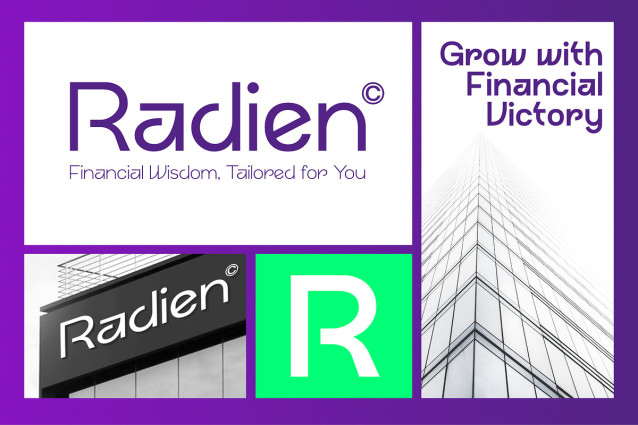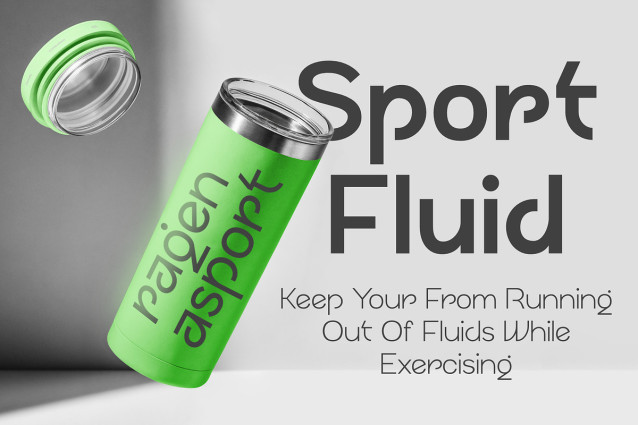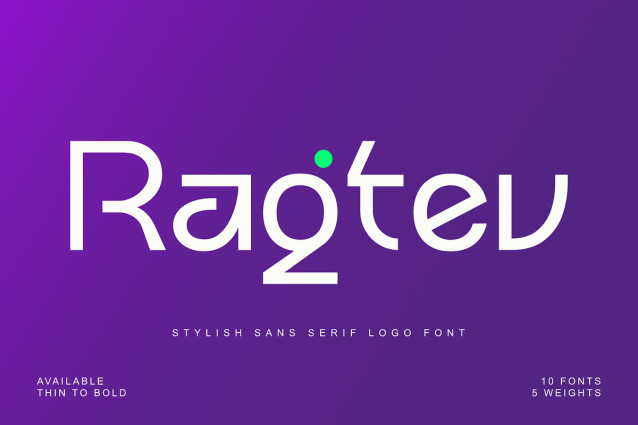
Ragtev Font
Ragtev Font is a modern font crafted for designers who want elegance and versatility in their work. With clean lines and balanced shapes, it delivers a stylish and professional look that adapts perfectly to logos, branding, packaging, and editorial layouts.
Offering a complete range of styles from Thin to Bold, Ragtev gives you the flexibility to create anything from minimal, lightweight designs to strong, eye-catching visuals. Its sleek geometry and refined proportions give Ragtev a timeless character, making it an excellent choice for contemporary brands, creative studios, and professionals aiming for a strong visual identity. From subtle headlines to sophisticated logos, Ragtev provides the tools you need to bring your ideas to life.